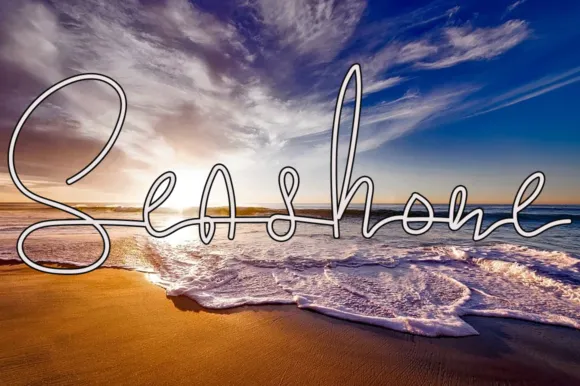
Still Pretty Font Download
Still Pretty Font is a straightforward, dainty and polished transcribed textual style.
Regardless of the subject, this textual style will be an inconceivably resource for your text styles’ library, as it can possibly hoist any creation.